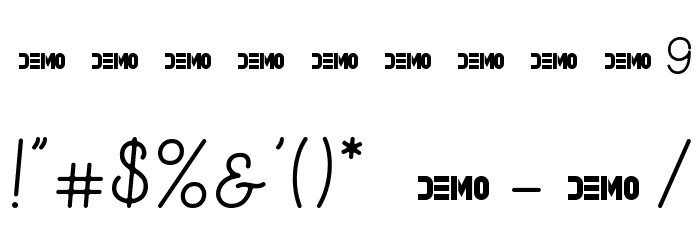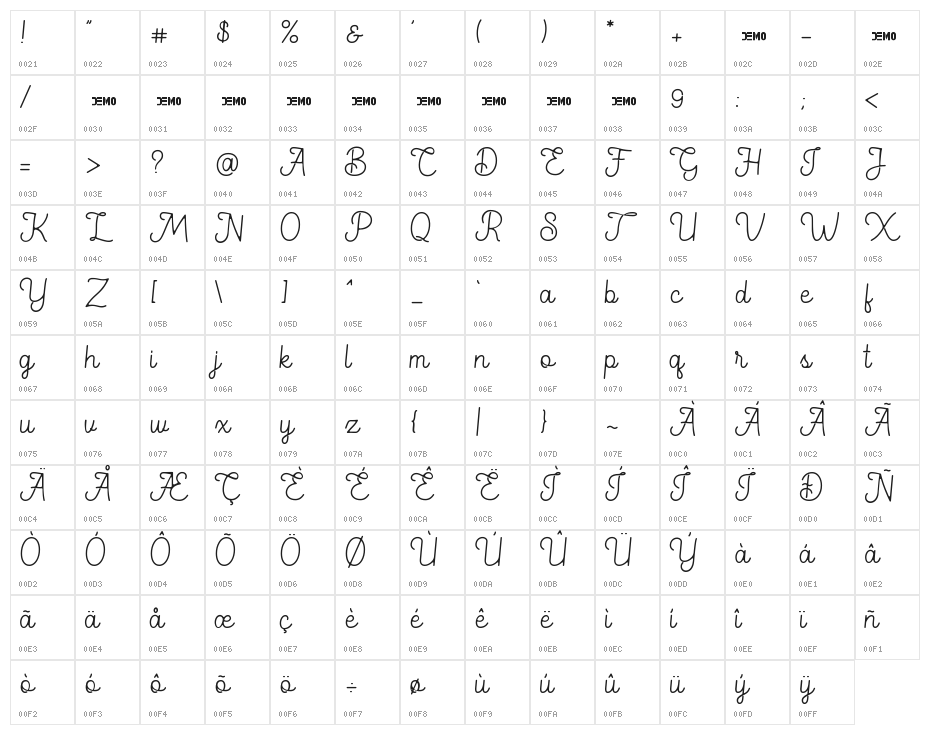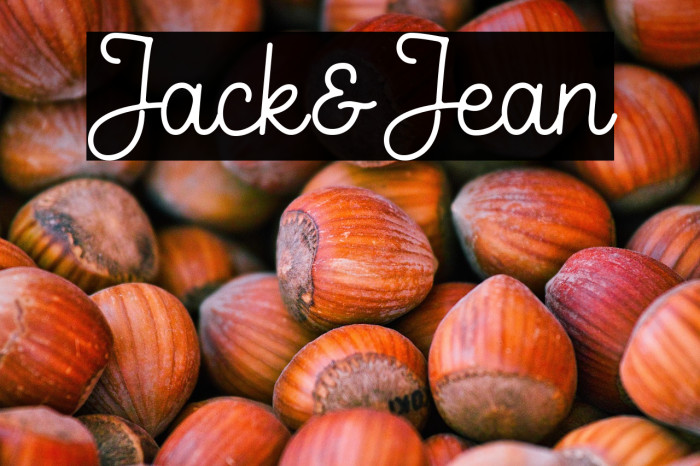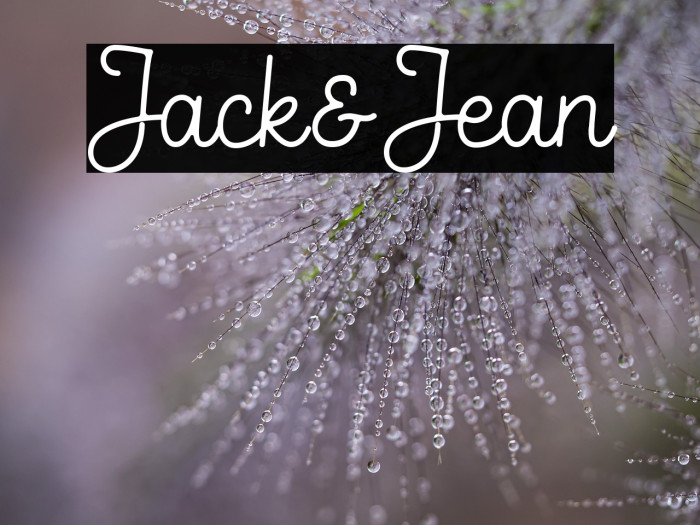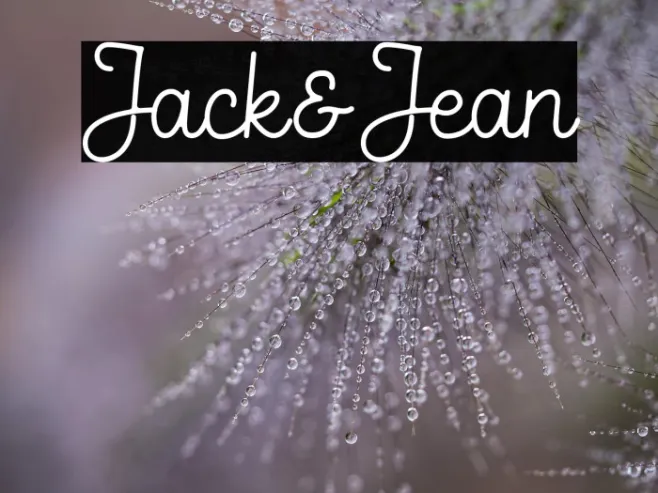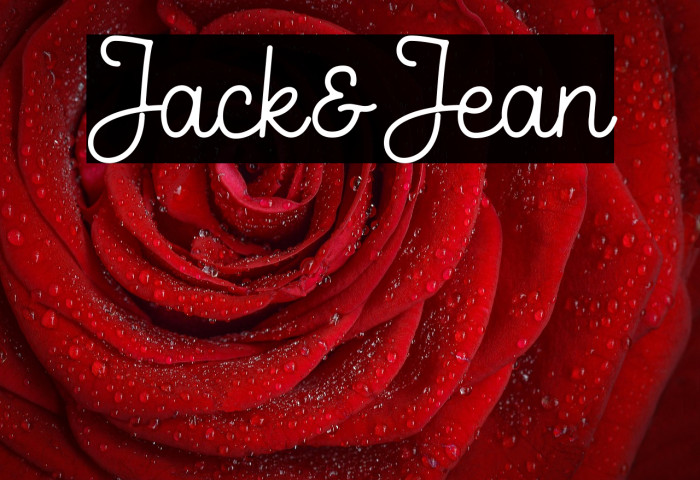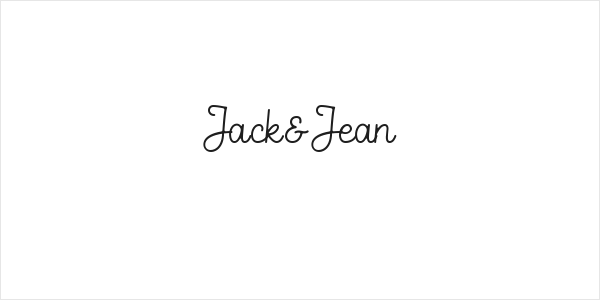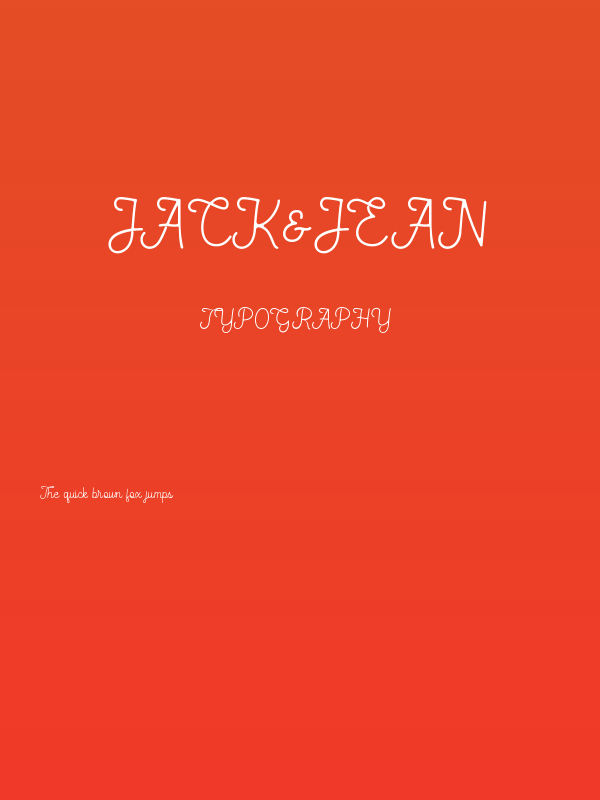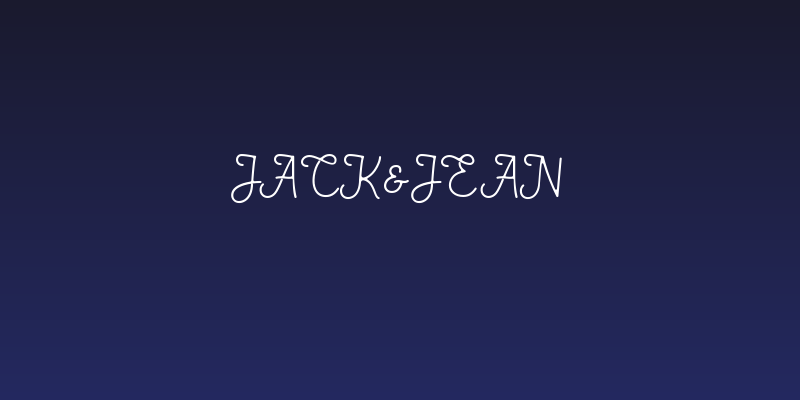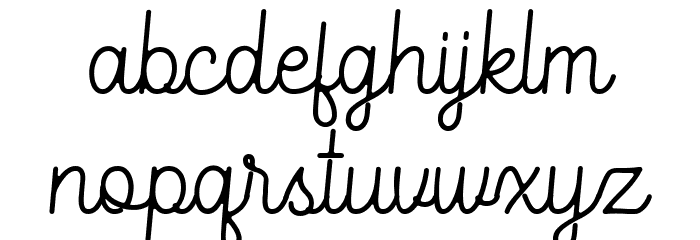
Jack&Jean Font
Jack&Jean Description
This font features a playful and elegant script style, characterized by its flowing and connected letterforms. The uppercase letters exhibit a whimsical flair with loops and curves, while the lowercase letters maintain a consistent, smooth flow. The numerals and special characters complement the overall design with similar stylistic elements. The font's design is both decorative and functional, making it suitable for a variety of creative applications. Its unique style is perfect for adding a personal touch to any project, offering a sense of charm and sophistication.